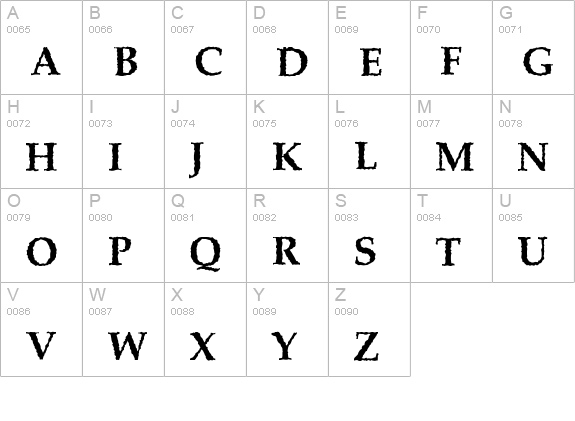
Grunge Petina Bold is a strong, high-contrast variant in the Grunge typeface family \xE2\x80\x94 well suited to headlines, attention-grabbing titles, and strong calls-to-action.
Introducing Grunge Petina Bold, a captivating and edgy font that exudes a raw and rebellious aesthetic. This typeface is perfect for projects that require a bold statement, adding a touch of grunge and attitude to any design. With its distressed and weathered appearance, Grunge Petina Bold is sure to make your text stand out and command attention. The best part? Grunge Petina Bold is available for free download at FontsMarket.com. This means you can easily add this unique and eye-catching font to your collection without any cost. Whether you're working on a poster, logo, or branding project, Grunge Petina Bold is the perfect choice for creating a bold and unforgettable look. Download it today and let your creativity shine with this stunning free font.